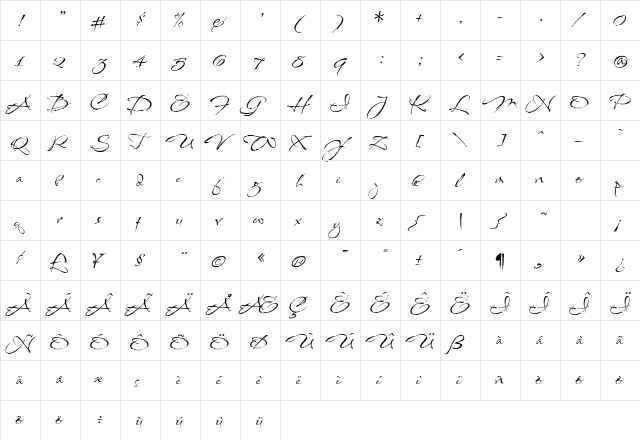
Babylonica ROB
Design Context for Babylonica Typeface
Babylonica is a composed and adaptable typeface that performs quietly and consistently across a wide range of design contexts.